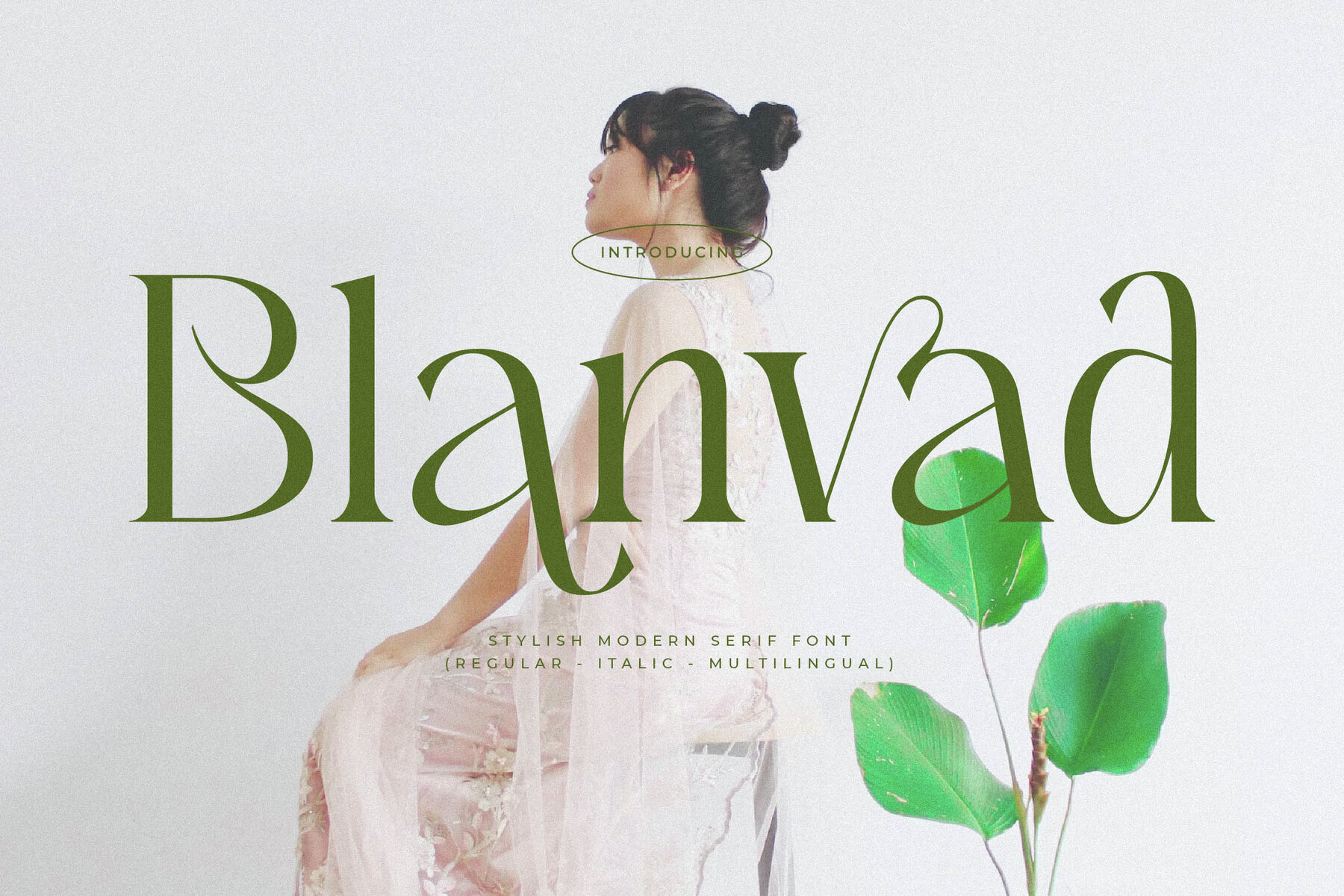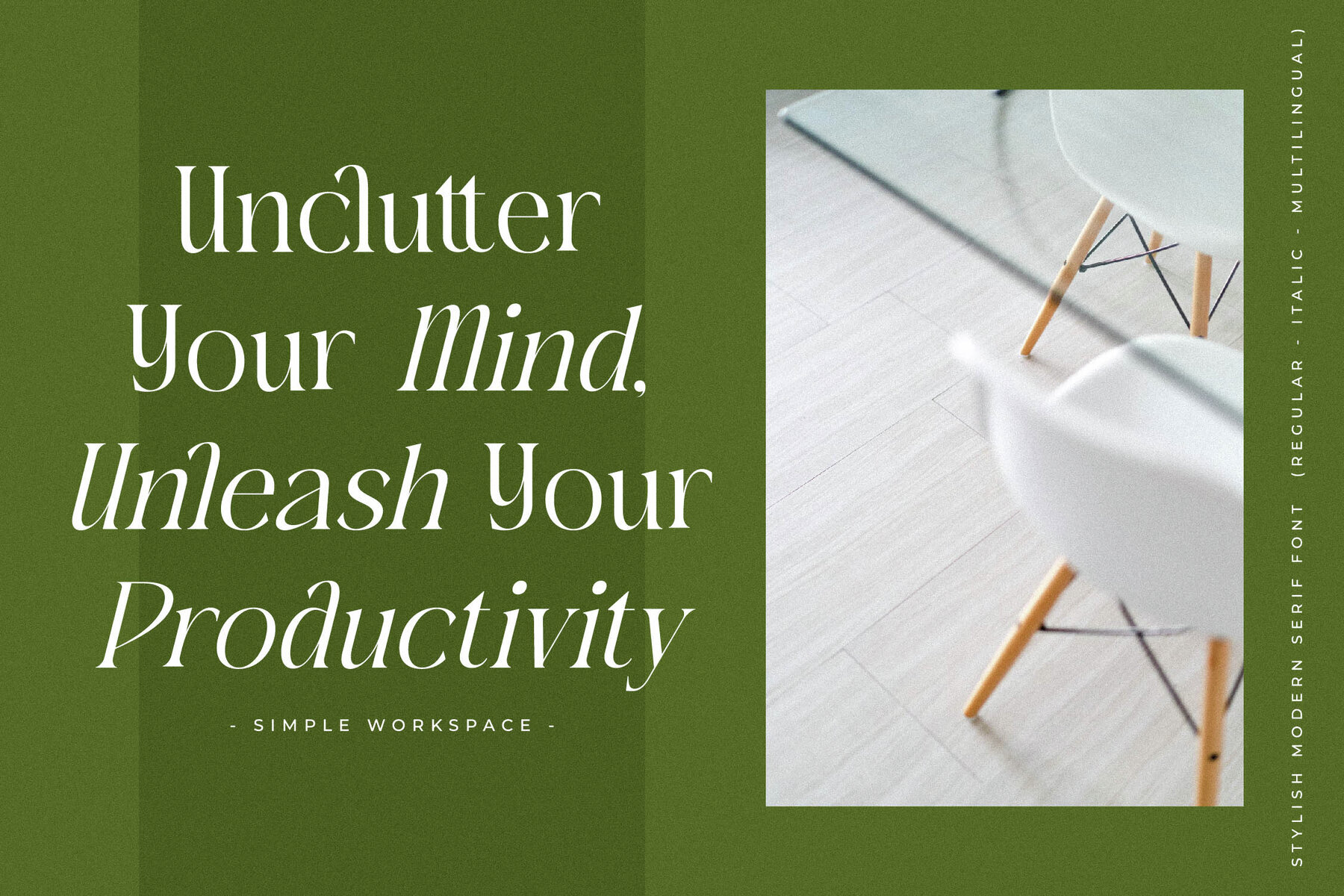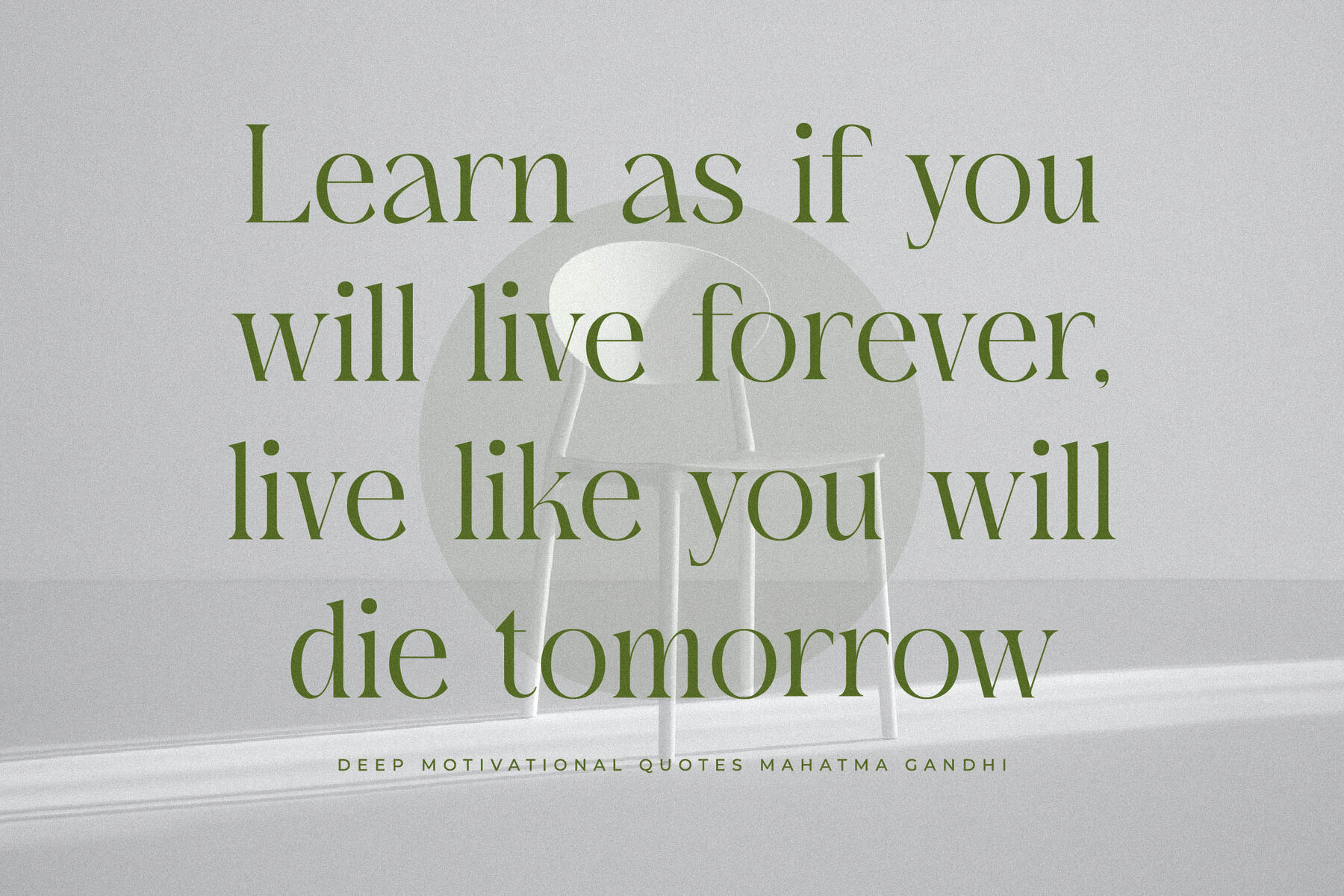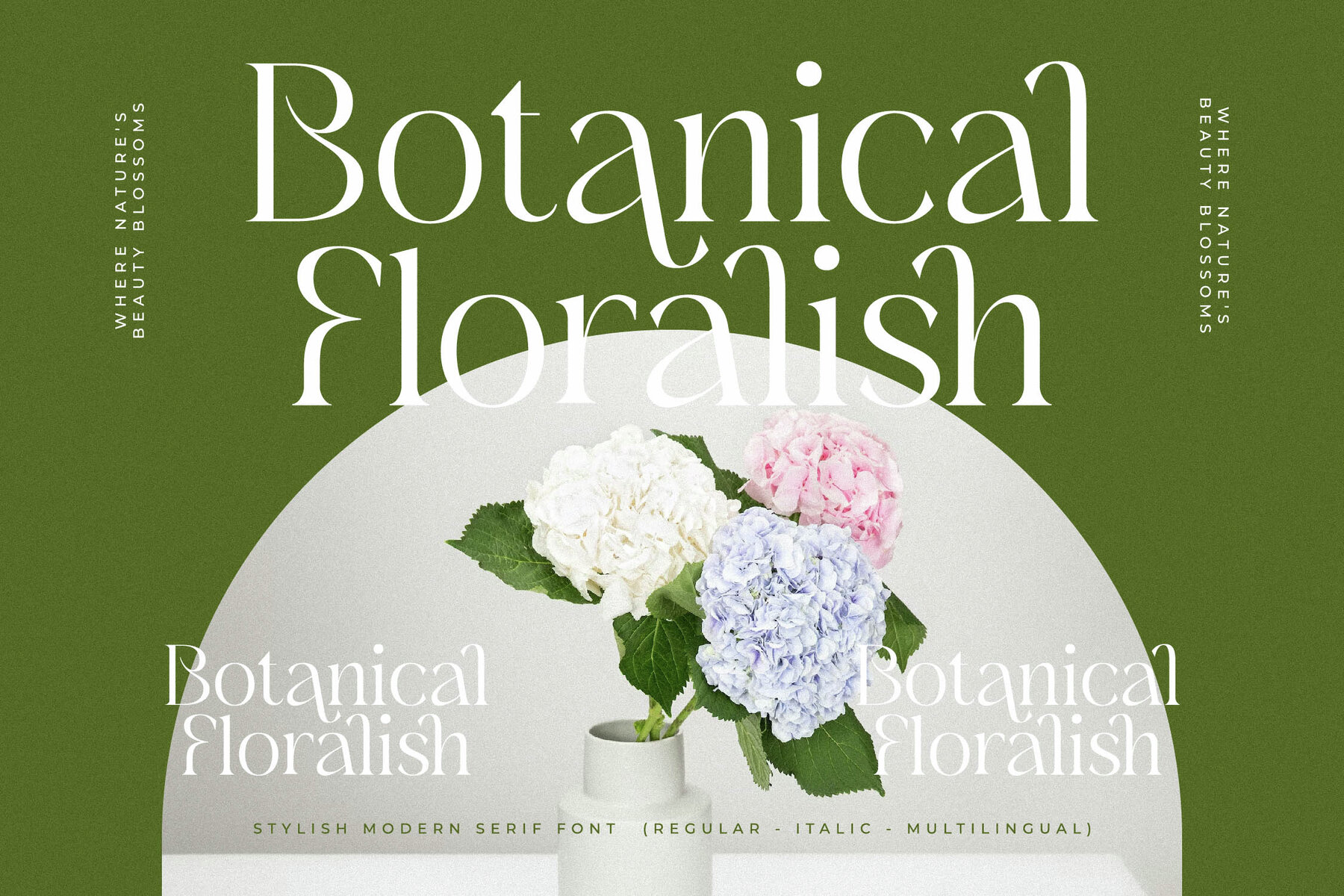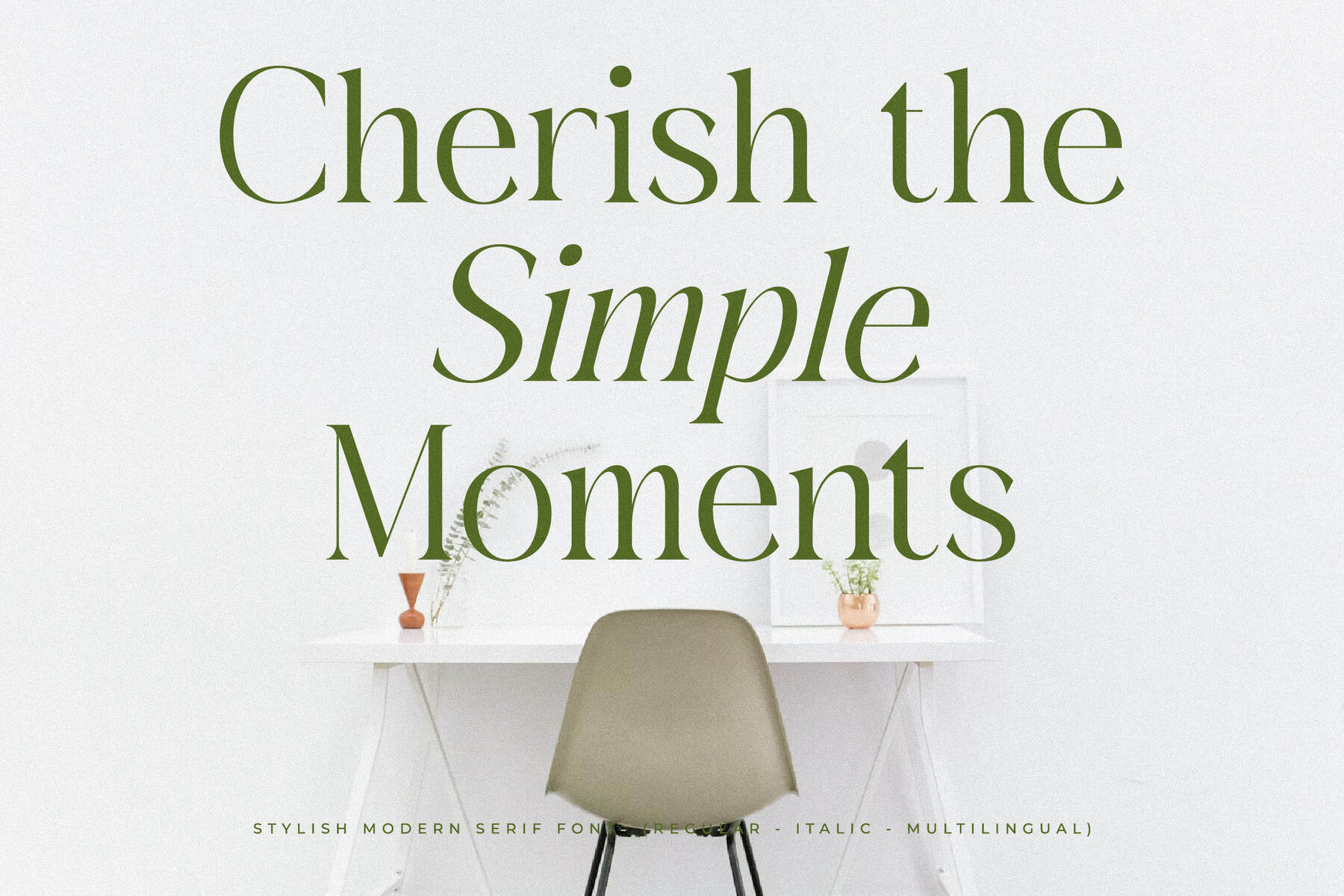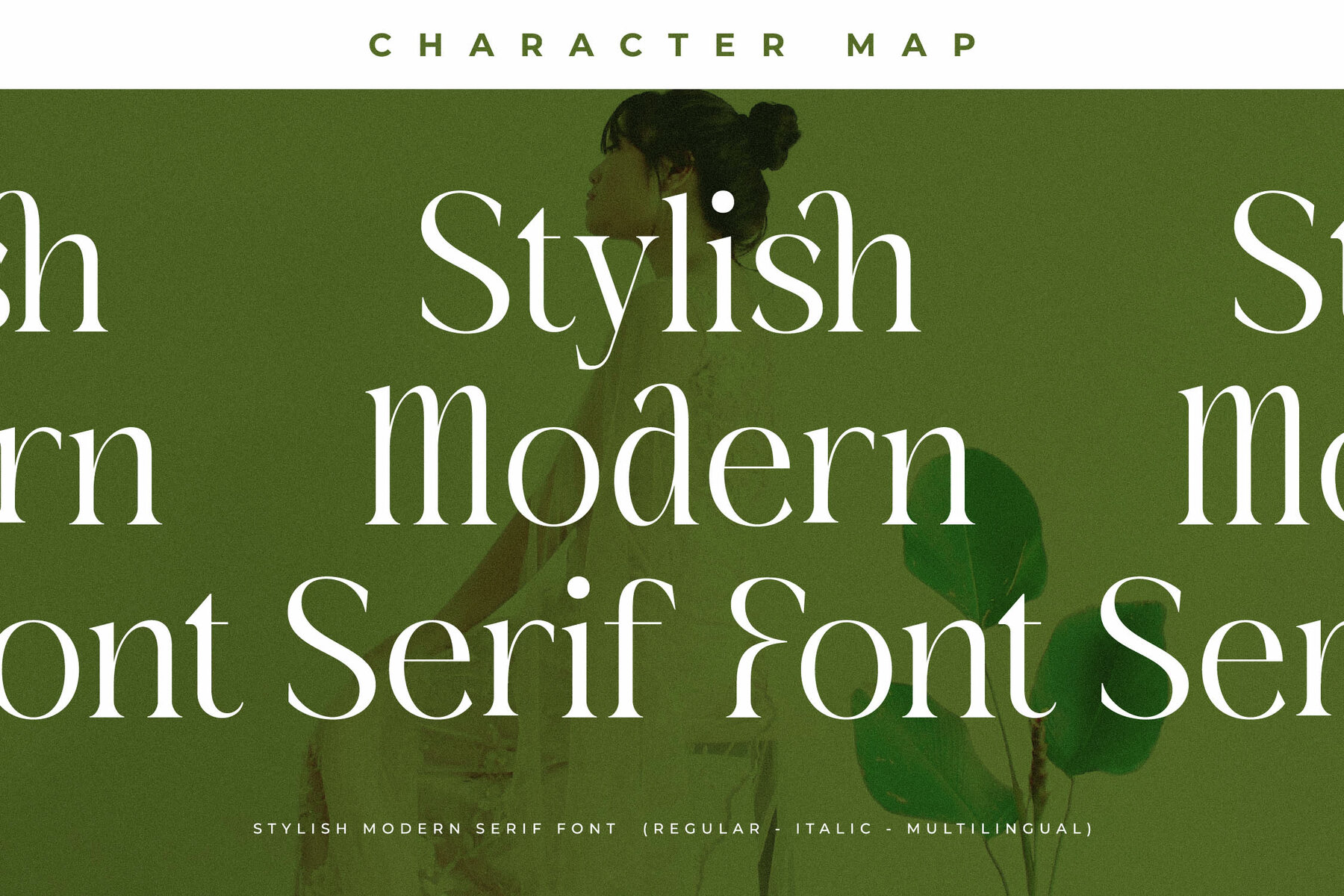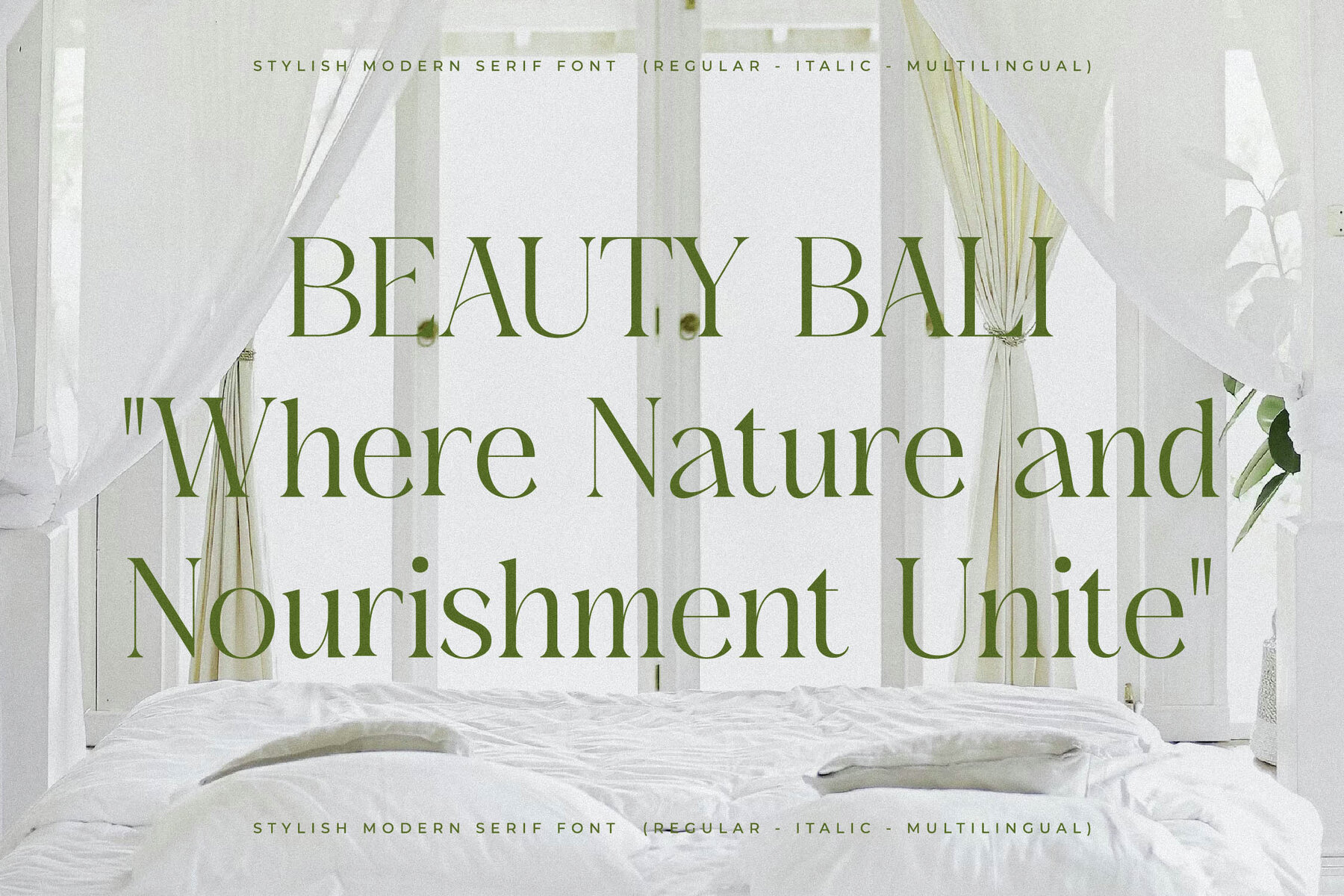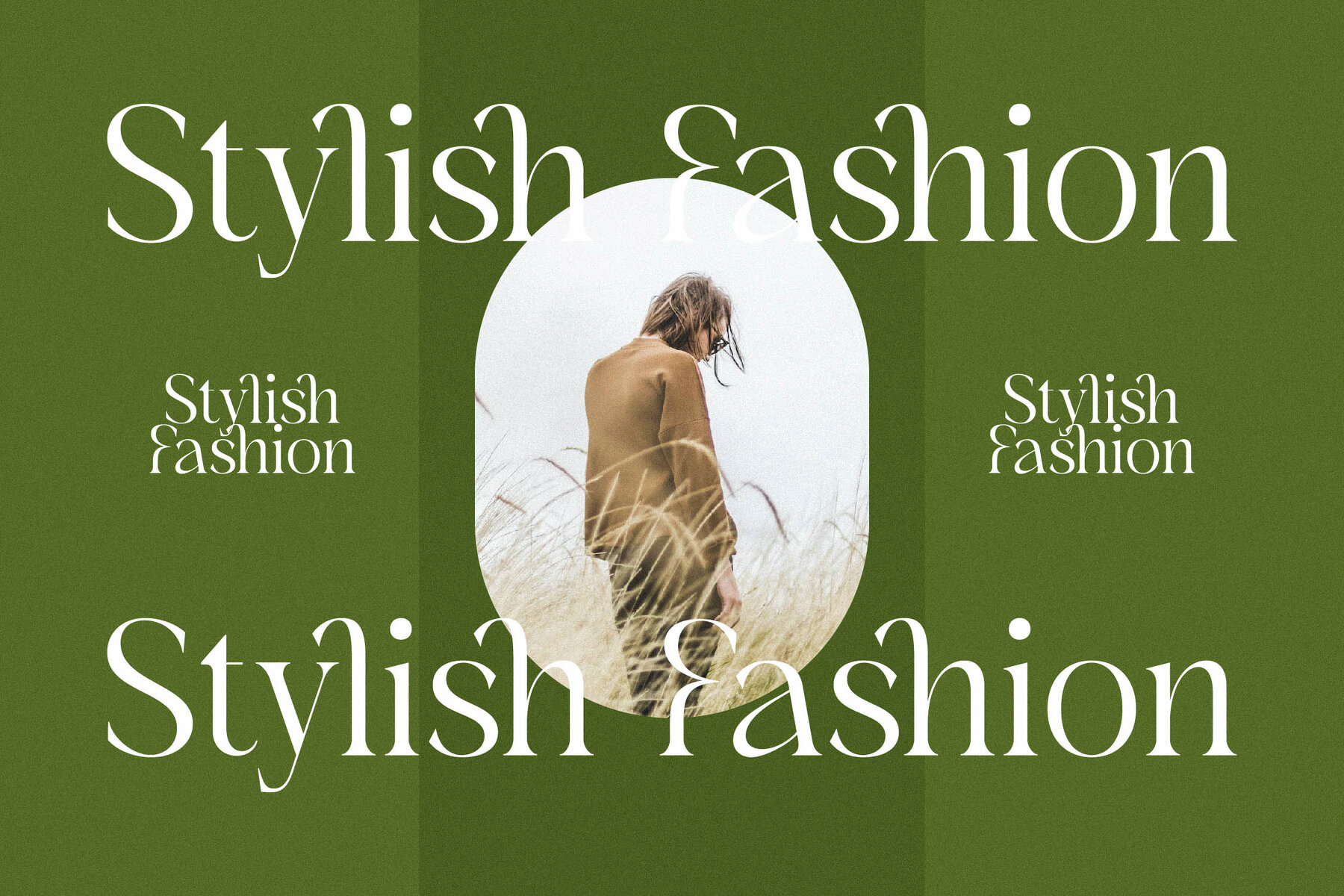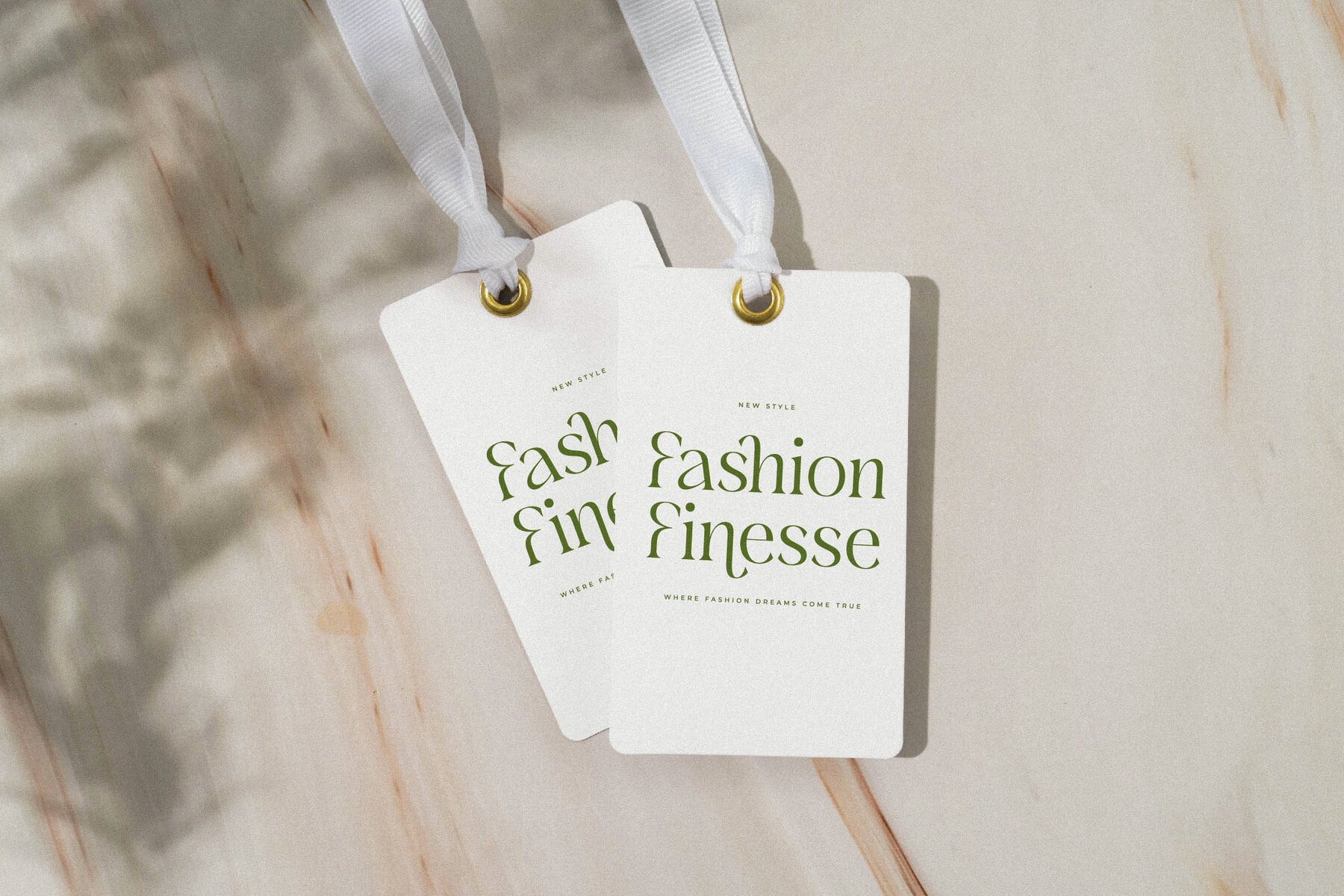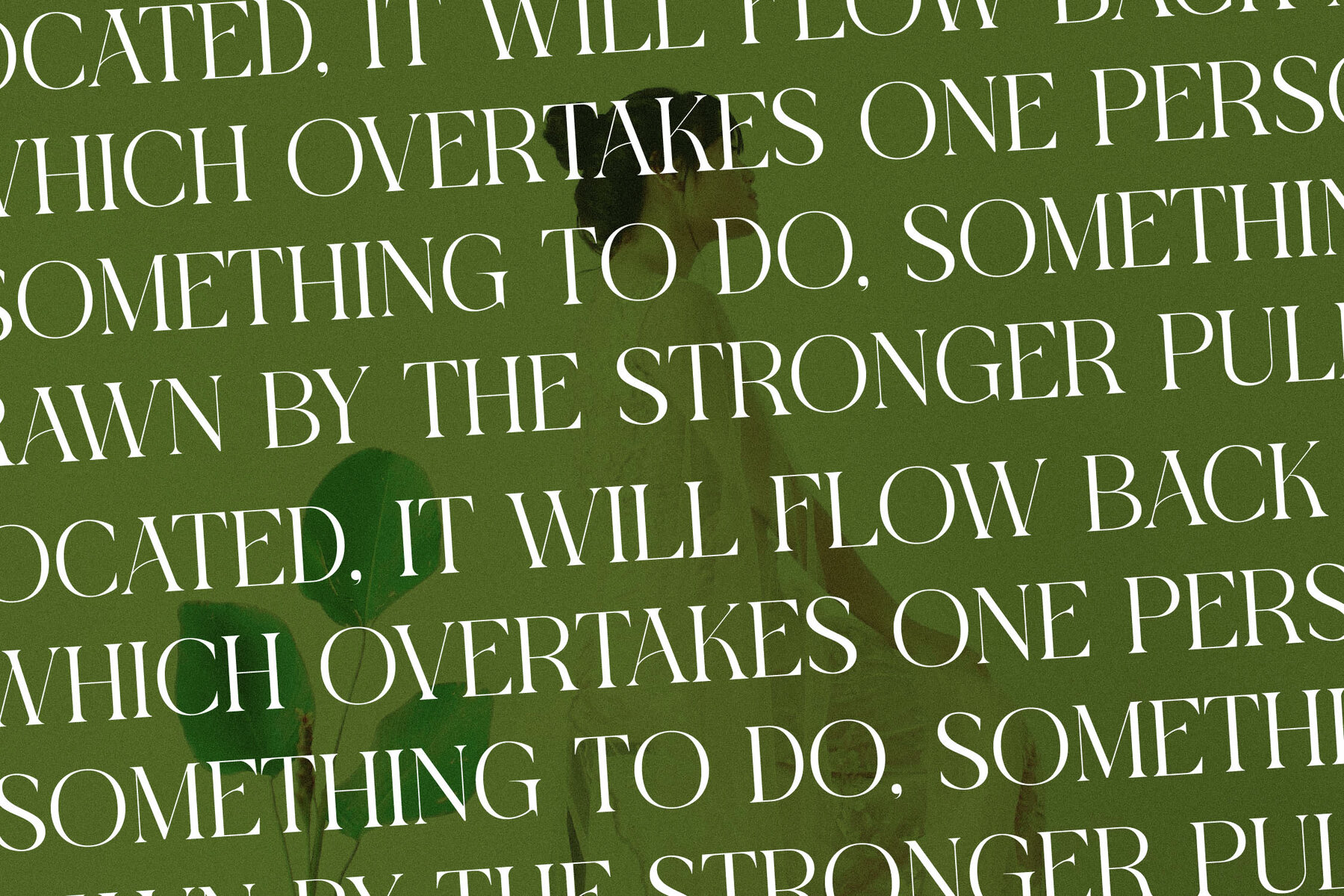
Blanvad Font
Blanvad Regular
Blanvad Italic
Introducing Blanvad, a sophisticated serif typeface by Storytype Studio. This font offers a unique blend of modernity and classic style, making it an ideal choice for projects that demand elegance and luxury. Whether you're designing a logo, a book or movie title, or branding for a high-end fashion magazine, Blanvad delivers a sleek and refined touch.Blanvad Typeface by Storytype Studio